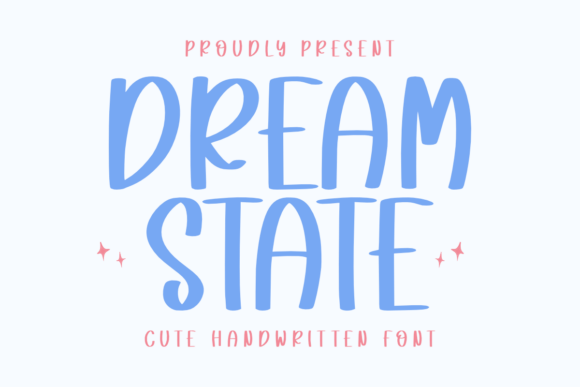
Dream State Font: The Soft and Dreamy Handwritten Font for Your Designs
Are you looking for a font that can bring a calm, whimsical feel to your designs? Look no further than the Dream State Font. This soft and dreamy handwritten font is perfect for a variety of design projects, from bedtime stories to planner stickers, kids room decor, and inspirational quotes that feel like a daydream.
What is Dream State Font?
Dream State Font is a beautiful, handwritten font that is designed to evoke a sense of calmness and serenity. Its soft and dreamy strokes are perfect for creating designs that are both whimsical and inspiring. Whether you’re looking to create a bedtime story for children or an inspirational quote for adults, this font is sure to bring a touch of magic to your designs.
Characteristics of Dream State Font
The Dream State Font has several characteristics that make it stand out from other fonts. Some of its key features include:
- Soft and dreamy strokes: The font has a gentle, cursive feel that is perfect for creating designs that are both calming and inspiring.
- Whimsical feel: The font has a playful, whimsical feel that is perfect for designs that are meant to be fun and engaging.
- Handwritten style: The font is designed to look like it was written by hand, giving it a personal and unique touch.
- Calming effect: The font’s soft and dreamy strokes have a calming effect on the viewer, making it perfect for designs that are meant to be soothing and relaxing.
Uses for Dream State Font
The Dream State Font is a versatile font that can be used for a variety of design projects. Some of the most popular uses for this font include:
- Bedtime stories: The font’s soft and dreamy strokes make it perfect for creating bedtime stories for children.
- Planner stickers: The font’s whimsical feel makes it perfect for creating planner stickers that are both fun and functional.
- Kids room decor: The font’s playful, whimsical feel makes it perfect for creating kids room decor, such as wall art and decals.
- Inspirational quotes: The font’s calming effect makes it perfect for creating inspirational quotes that are meant to be soothing and uplifting.
Benefits of Using Dream State Font
There are several benefits to using the Dream State Font in your designs. Some of the most significant benefits include:
- Unique and personal touch: The font’s handwritten style gives designs a unique and personal touch that sets them apart from other fonts.
- Calming effect: The font’s soft and dreamy strokes have a calming effect on the viewer, making it perfect for designs that are meant to be soothing and relaxing.
- Versatility: The font is versatile and can be used for a variety of design projects, from bedtime stories to inspirational quotes.
- Easy to read: The font is easy to read, even at small sizes, making it perfect for designs that require a lot of text.
Tips for Using Dream State Font
Here are a few tips for using the Dream State Font in your designs:
- Use it for titles and headings: The font’s soft and dreamy strokes make it perfect for titles and headings, where you want to make a big impact.
- Pair it with other fonts: The font pairs well with other fonts, such as sans-serif fonts, to create a unique and interesting design.
- Experiment with colors: The font looks great in a variety of colors, from soft pastels to bold brights.
- Use it for digital and print designs: The font is suitable for both digital and print designs, making it perfect for a variety of applications.
The Dream State Font is a beautiful, handwritten font that is perfect for designs that require a soft, dreamy feel. Its whimsical feel and calming effect make it perfect for a variety of design projects, from bedtime stories to inspirational quotes. With its unique and personal touch, versatility, and ease of use, this font is sure to become a favorite among designers.